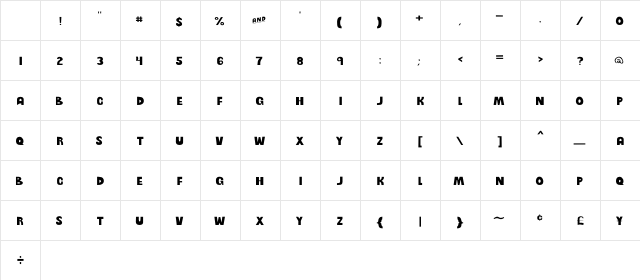
Complete Lazy Summer Regular glyph index. Displaying only characters natively supported by Lazy Summer Regular font.
Lazy Summer is a composed and adaptable typeface that performs quietly and consistently across a wide range of design contexts.